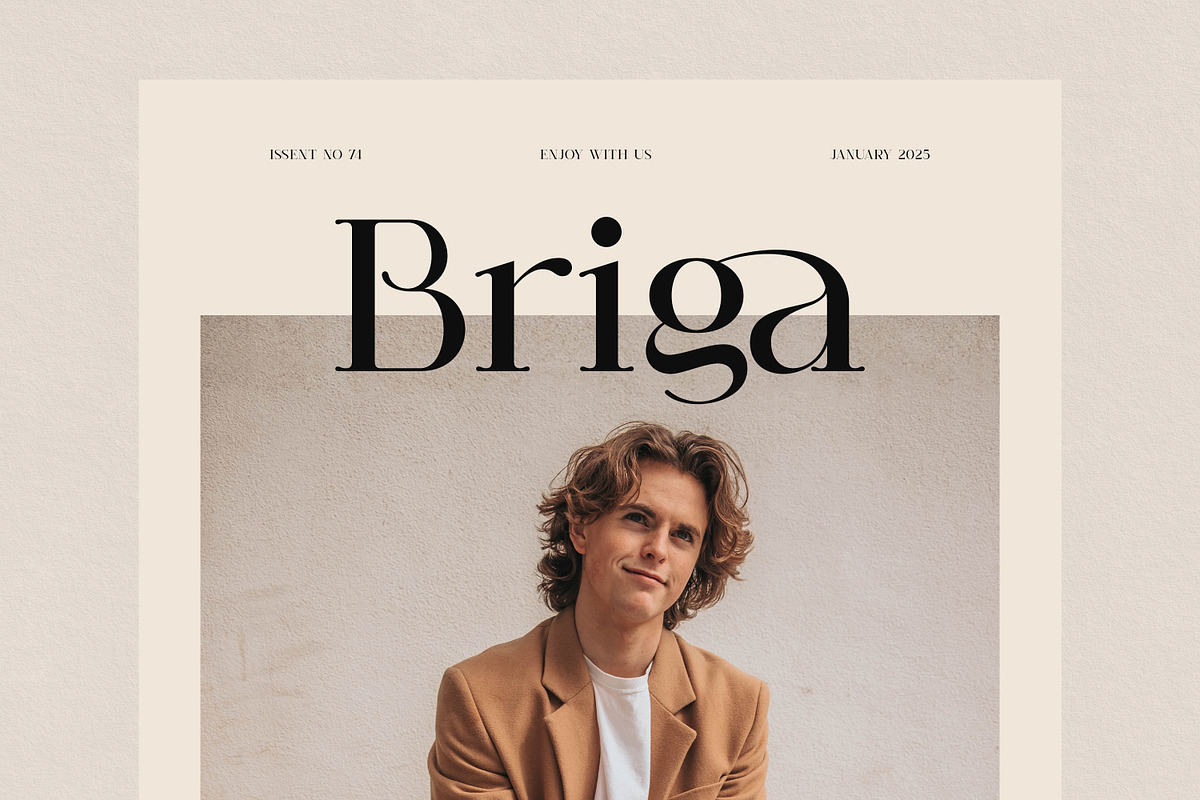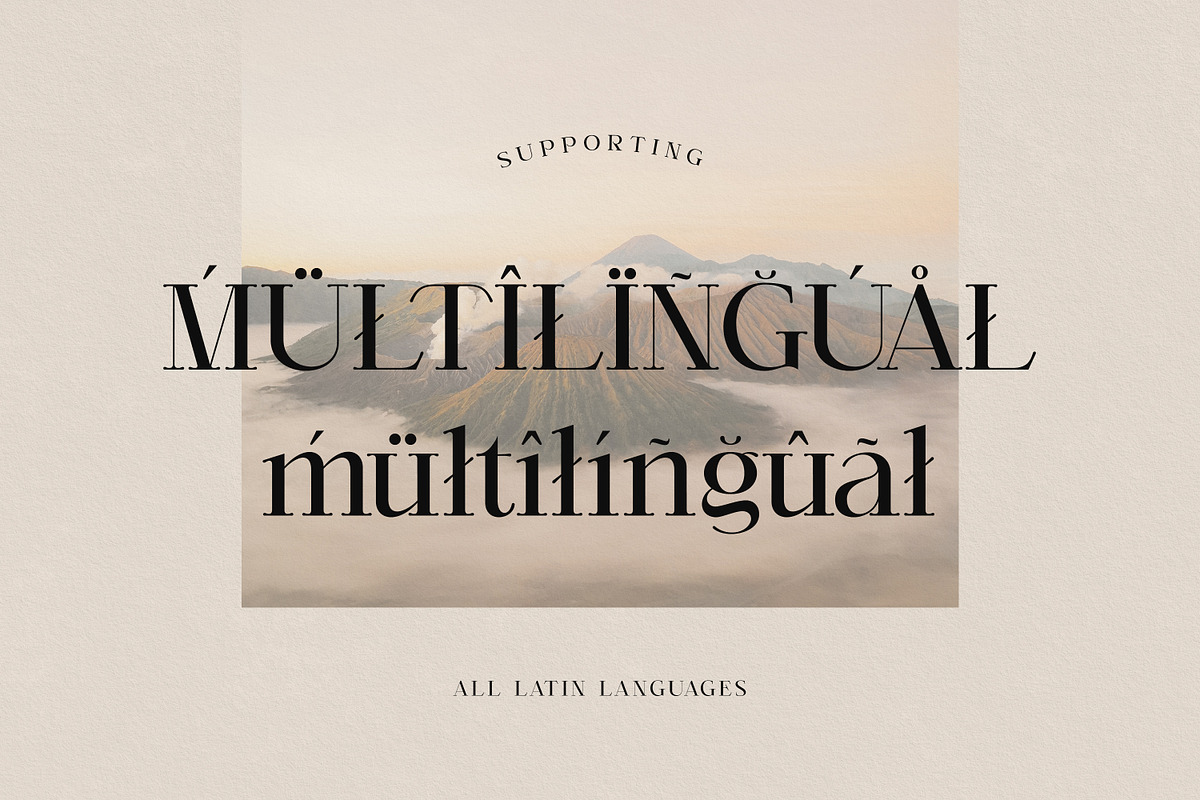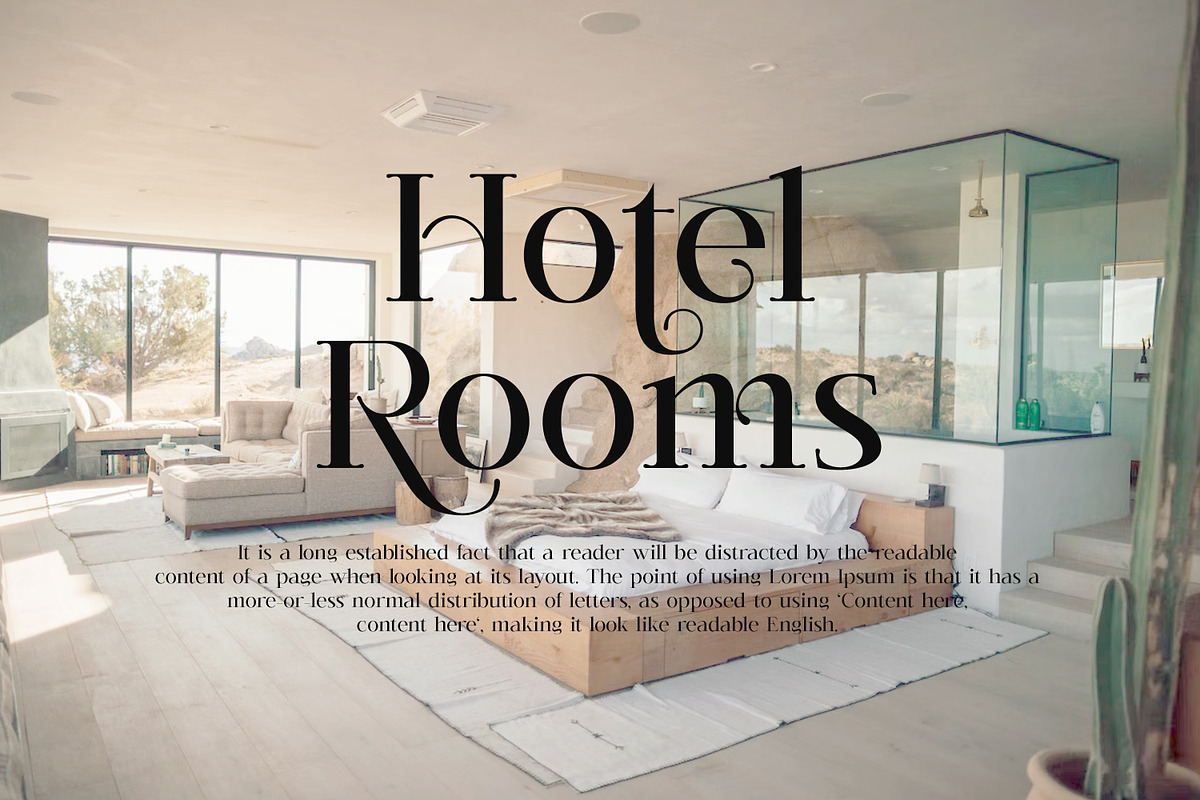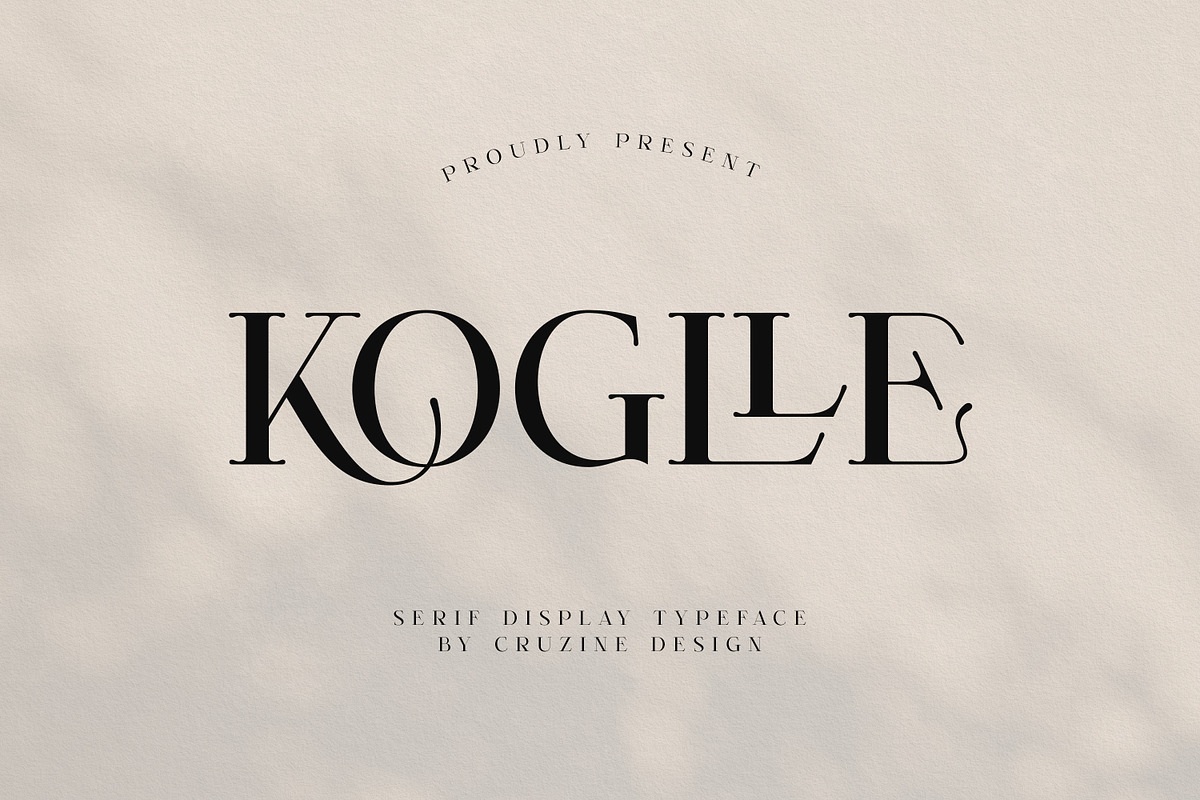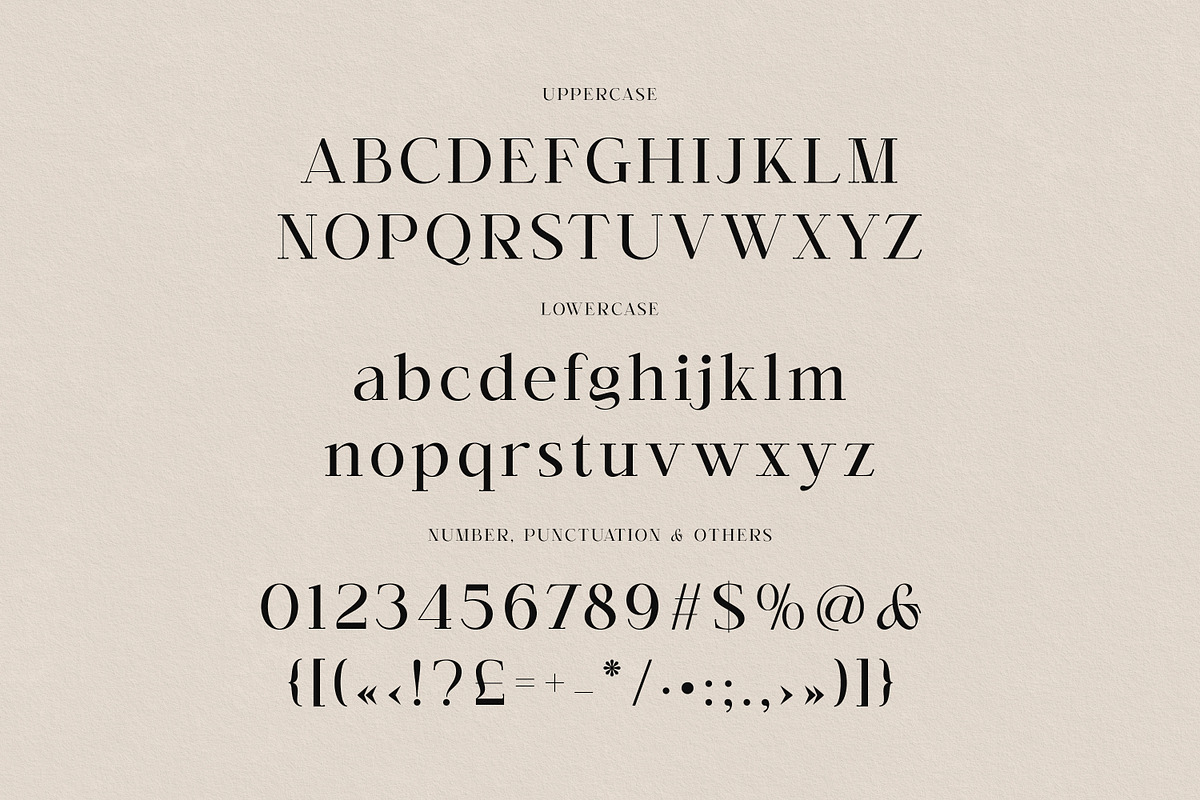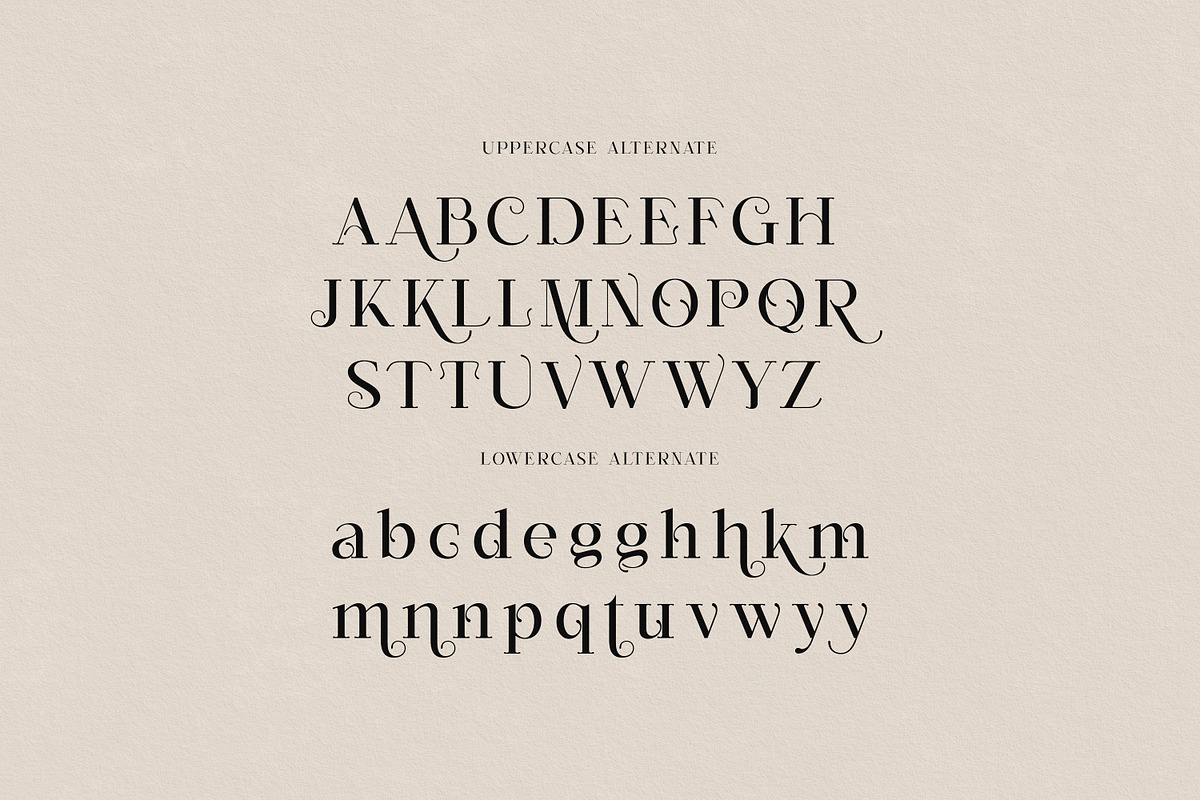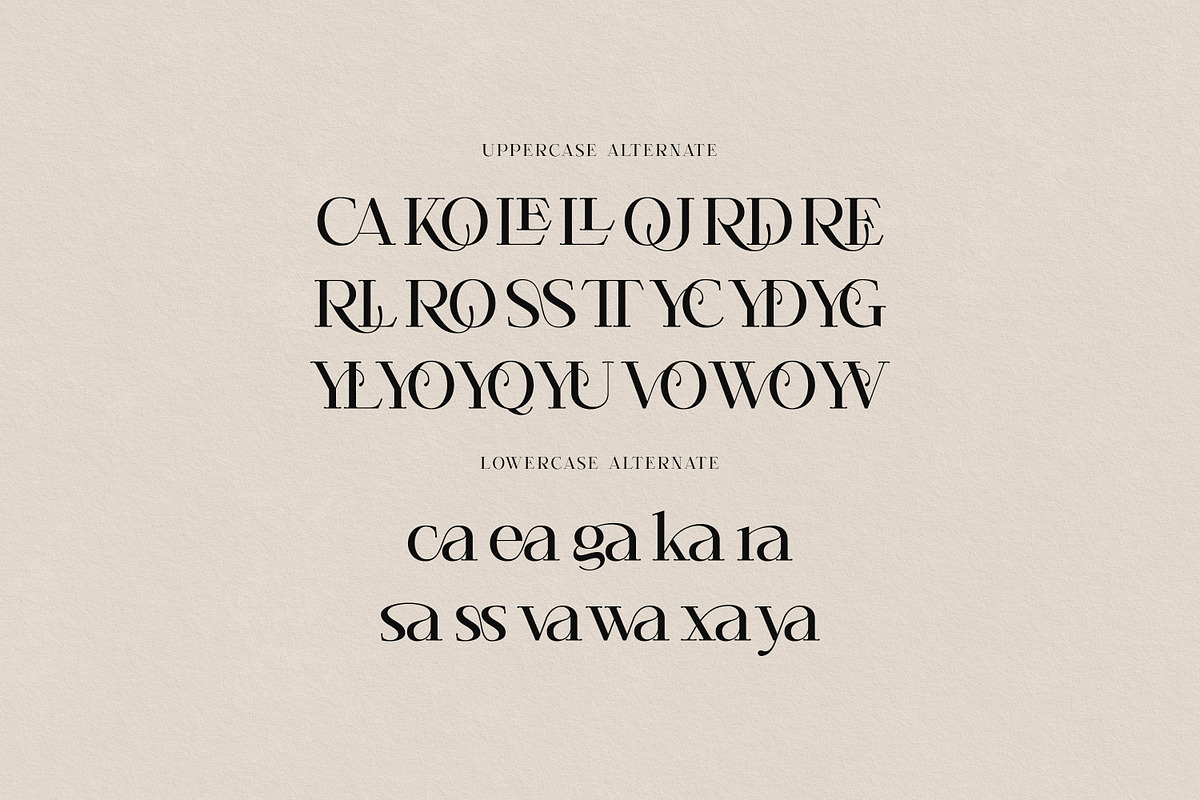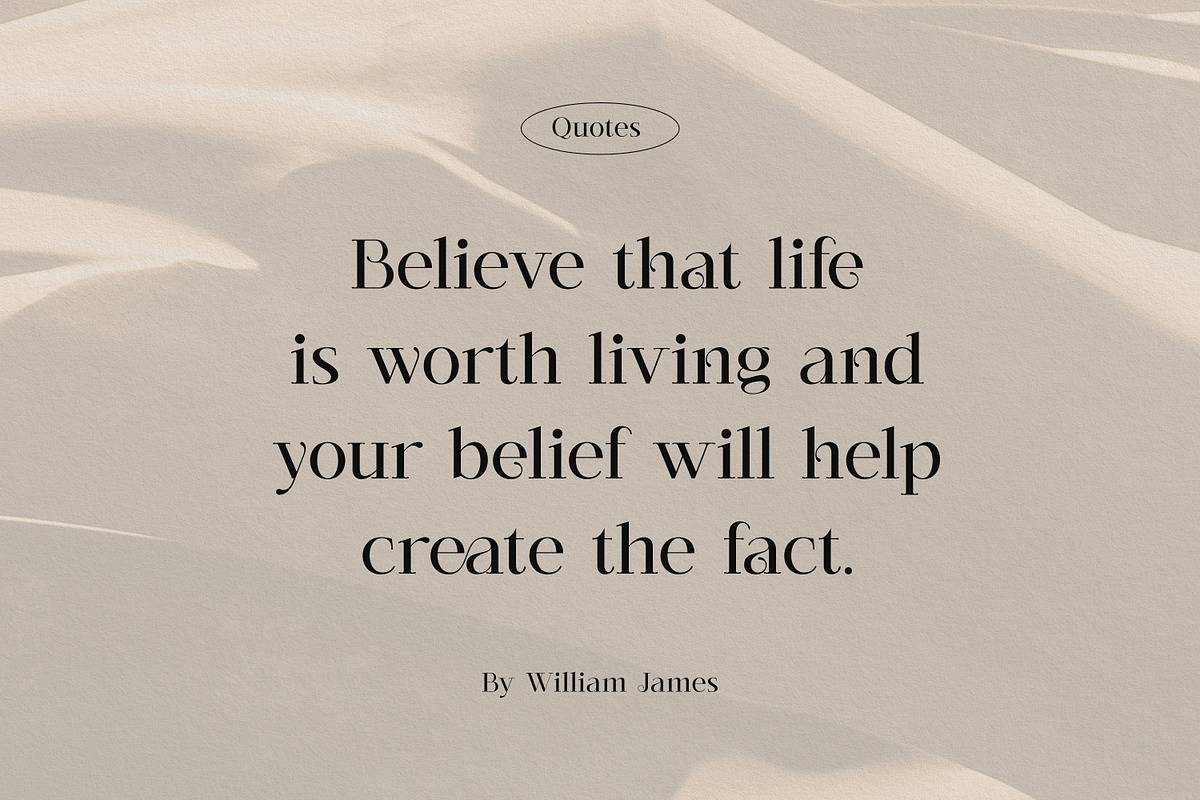
Koglle Elegant Serif
Trendy, elegant, luxury, retro & modern style serif font for your new fancy projects. Stylish, creative and classic style on Koglle font will be great for any modern branding project. Lot of alternates and ligatures will help you to create unique and original logo design or website header! Enjoy :)
- Alternate characters
- Lot of ligatures
- Great for modern branding projects!